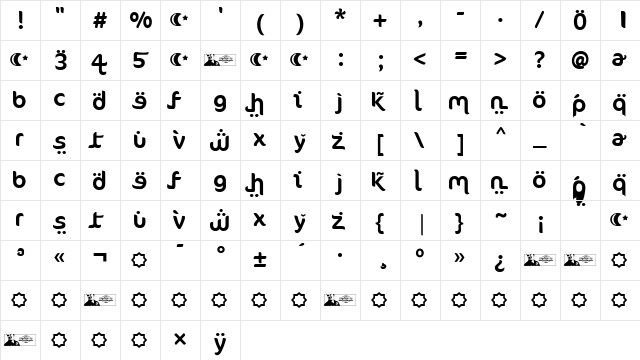
FTF Ahlan Ve Arabez FREE Regular
| Foundry | 順izzetica Type Foundry DepokAsiana. |
| Designer | Abdul Hafiz Hilman |
Design Context for FTF Ahlan Ve Arabez FREE Typeface
FTF Ahlan Ve Arabez FREE takes a measured approach to typography — its balanced proportions and neutral character make it a reliable workhorse for both digital and print work.